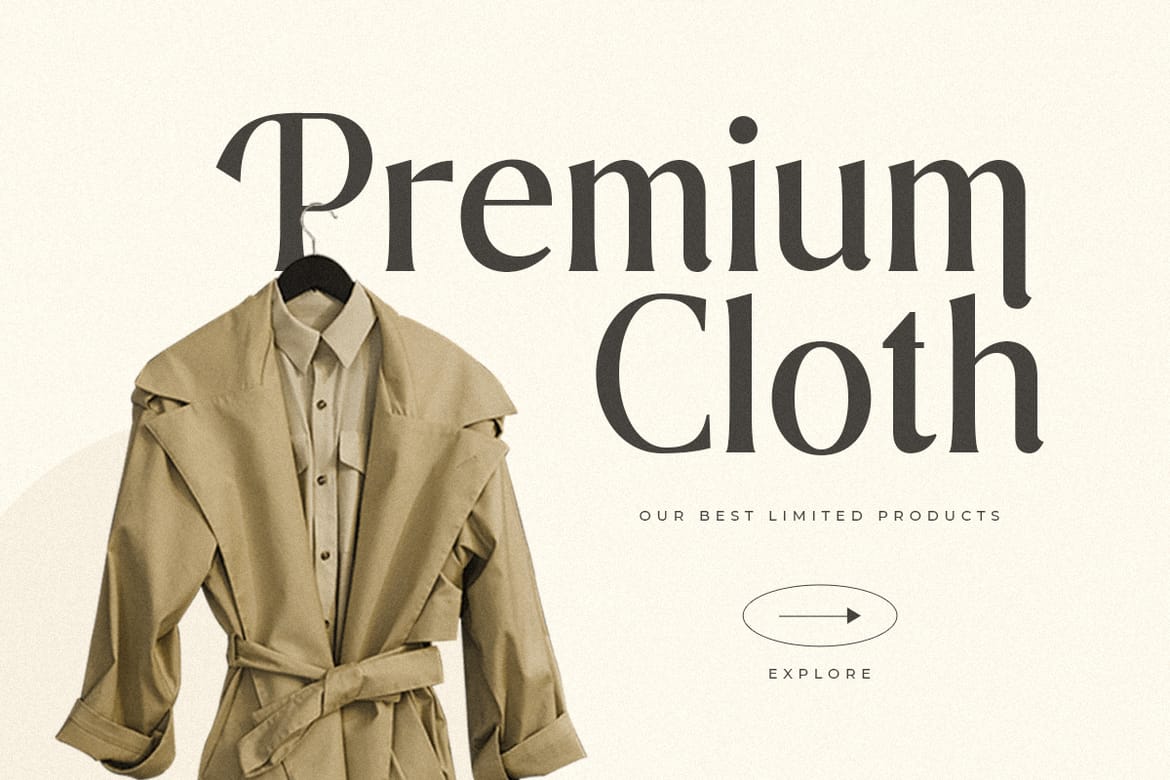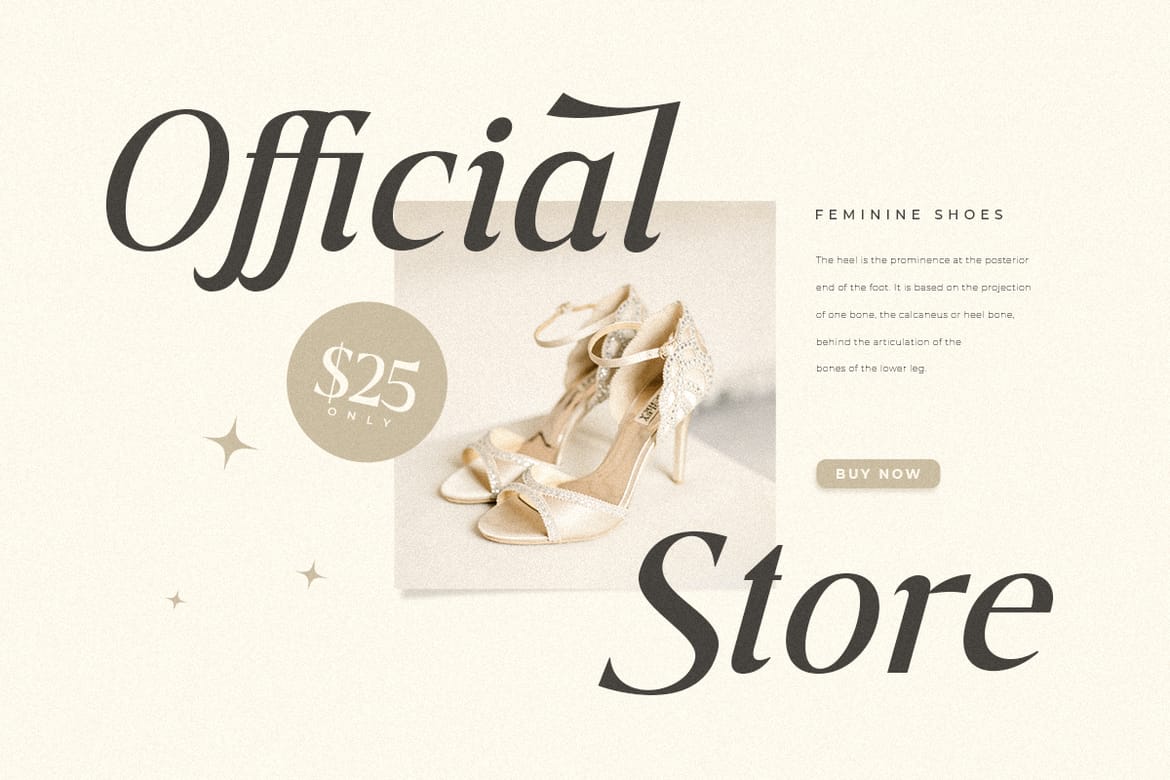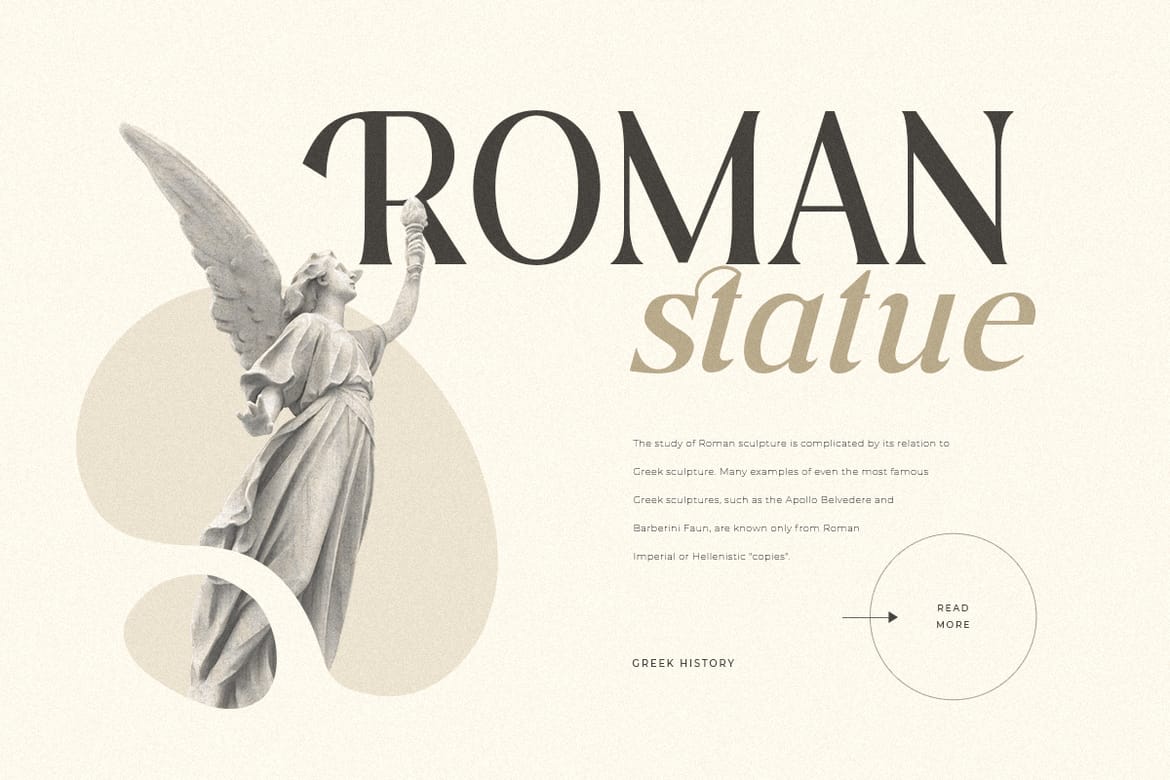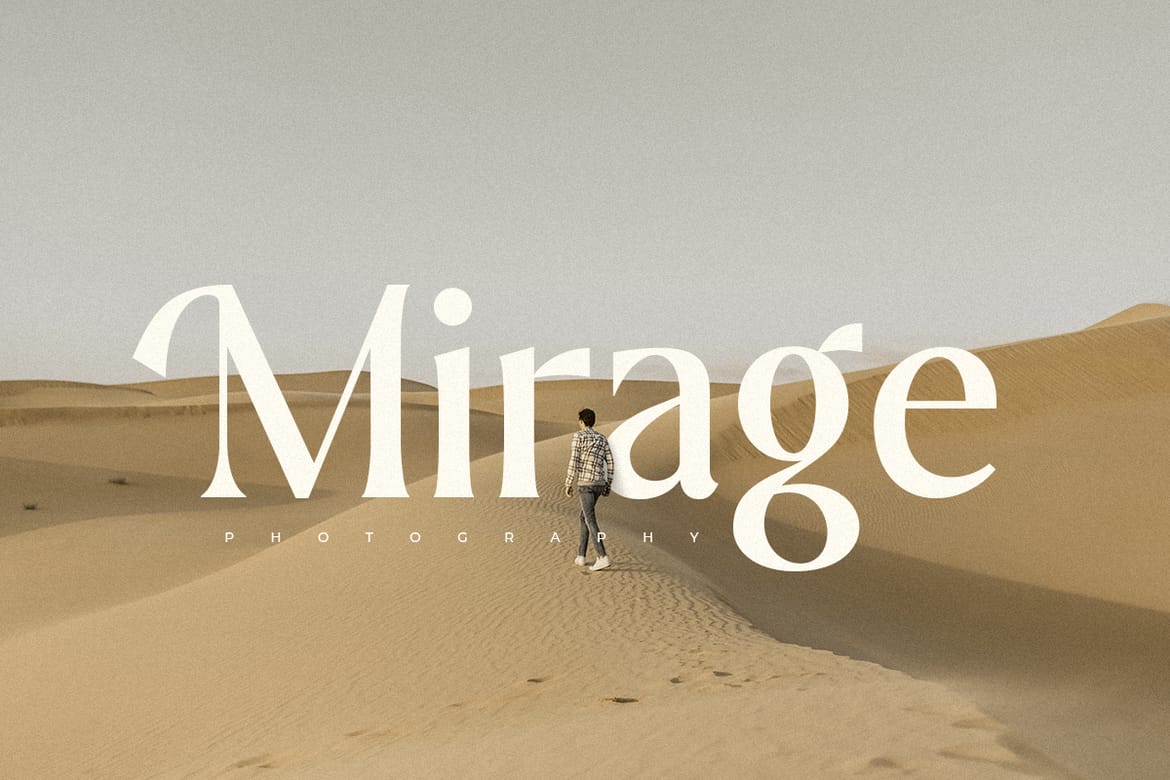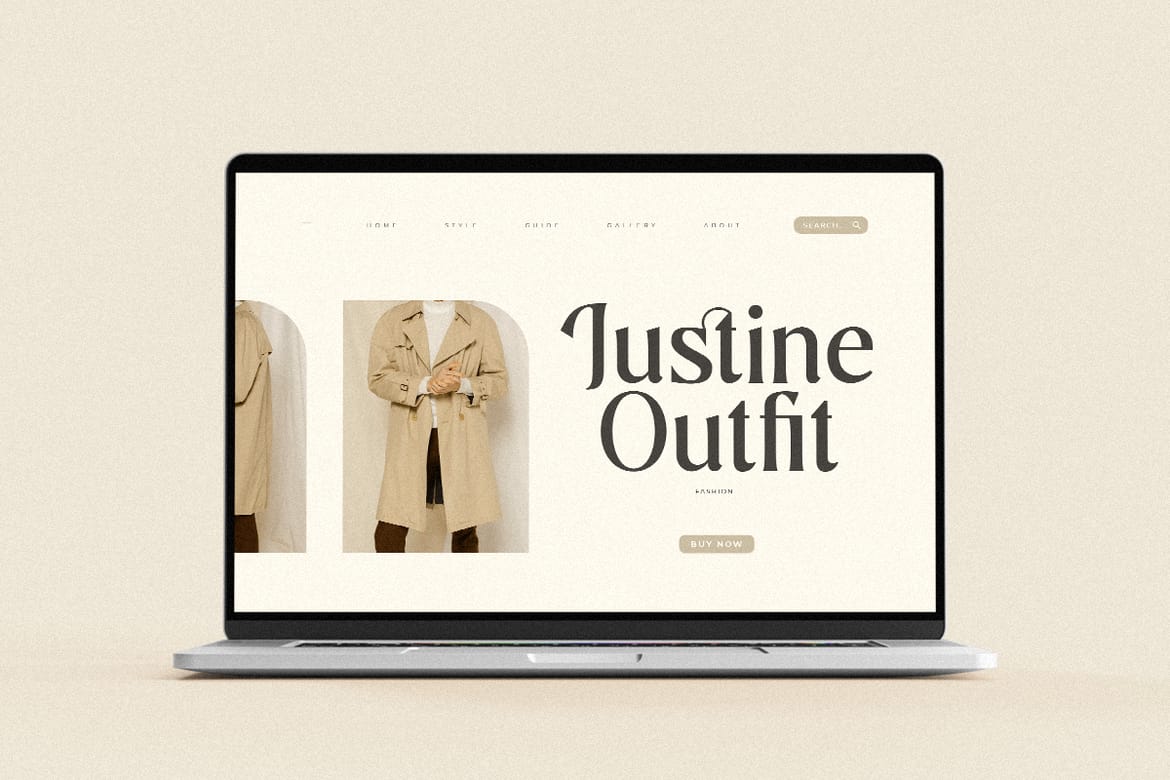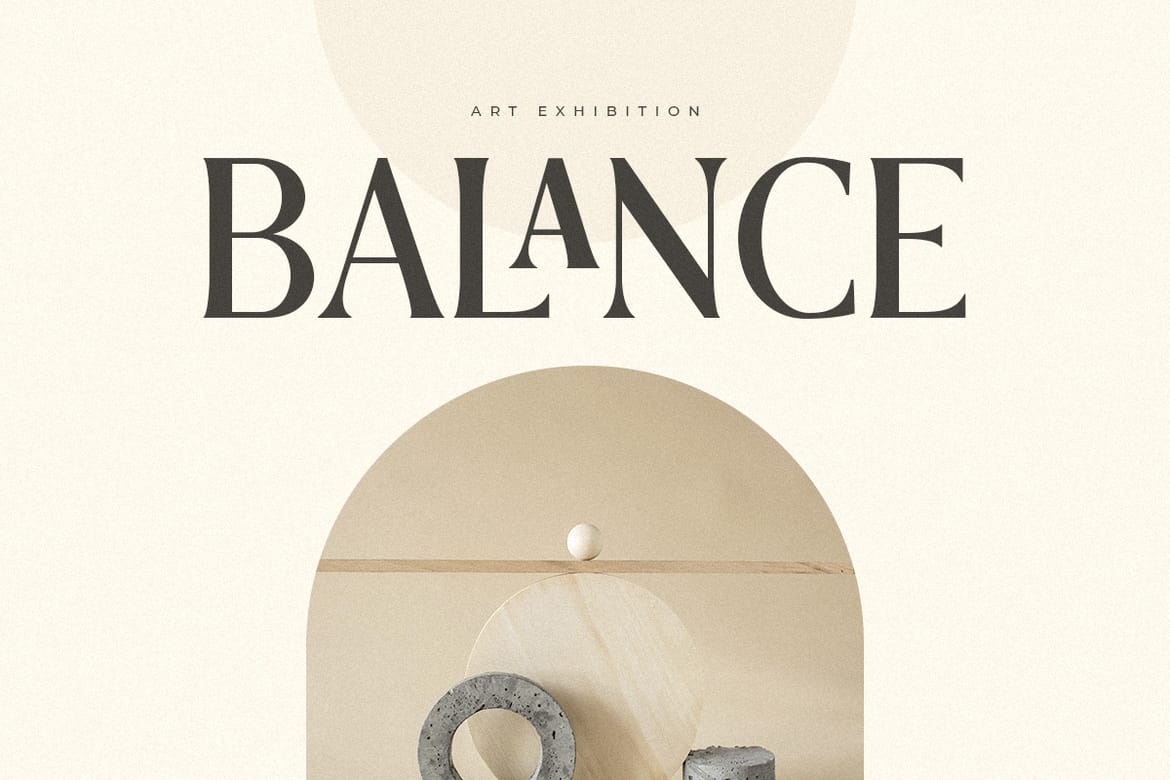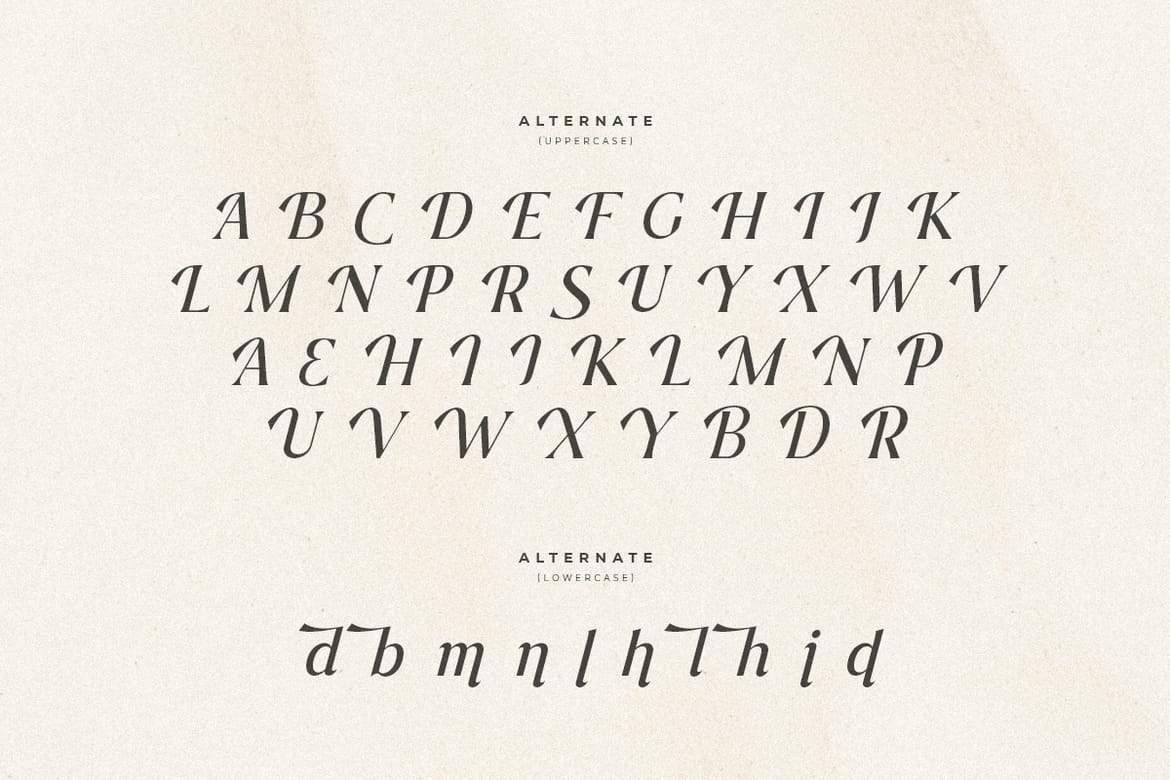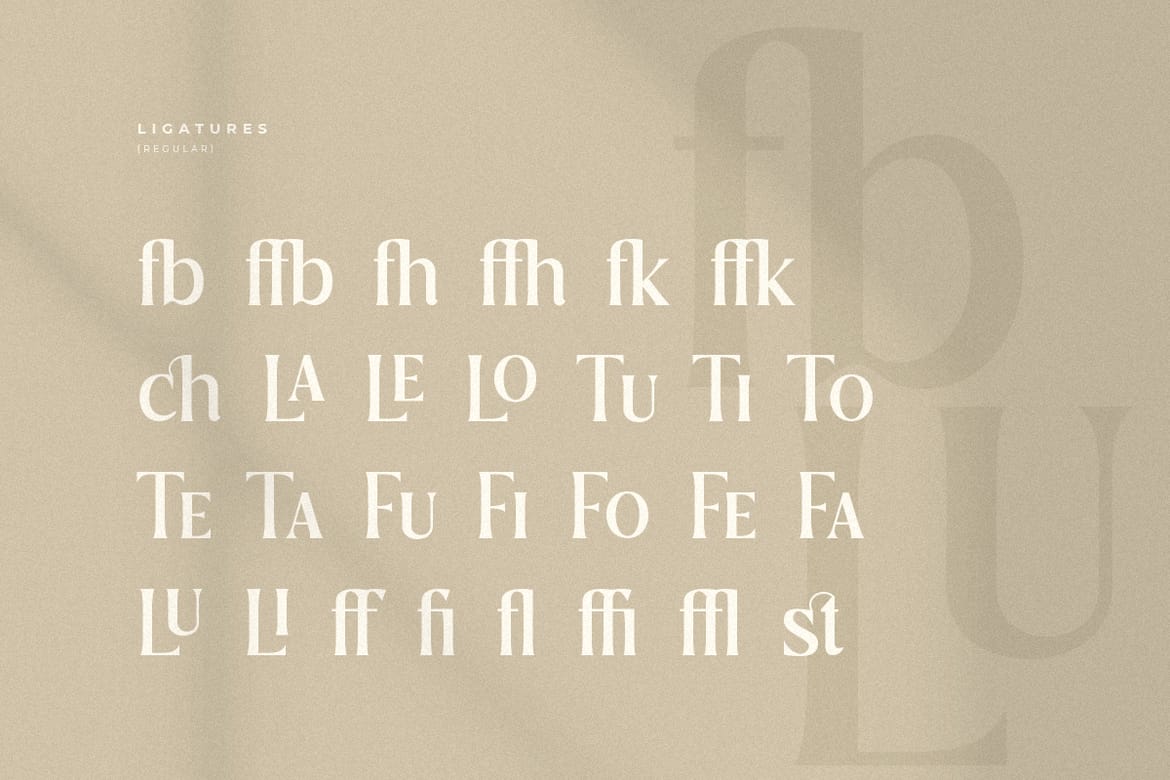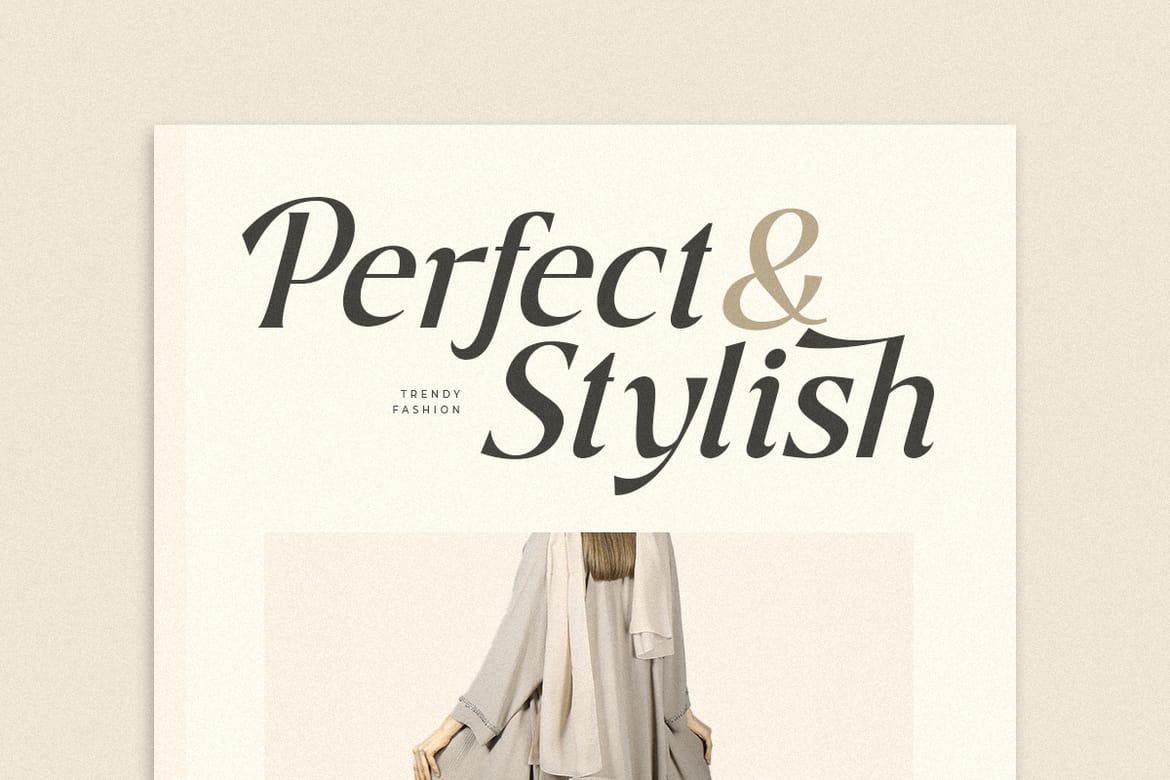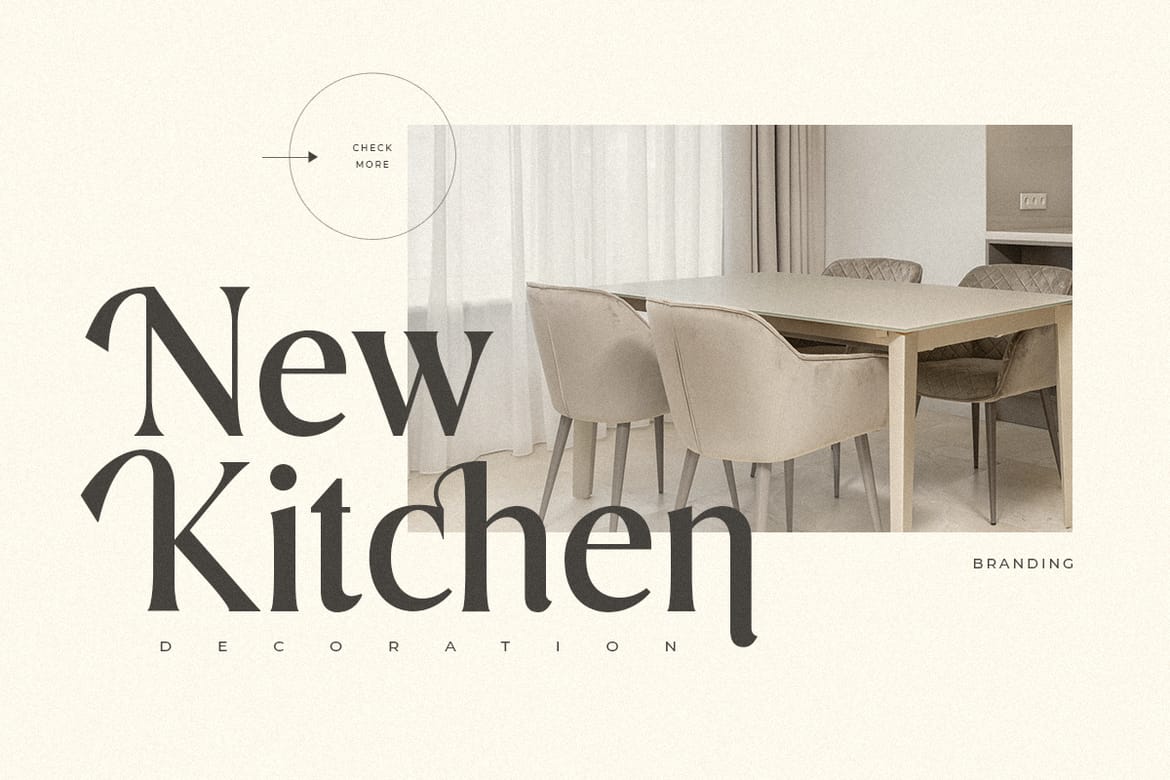
A Display font that we created special for elegant branding needs, with extra alternates in unique shape will be ready to add value of your brand. It so nice to leverage designer or product owner that need solutions to make their design look more aesthetic and modern. And specially for Journey font, We prepared any alternates characters to help you create unlimited variations for your creative needs.
Journey Modern Aesthetic Serif Font ready with:
Ready with alternate characters and ligatures
Preview as a inspirations that you can do with Journey font
Ready with Lowercase and Uppercase characters
- Elegant aesthetic serif display
- 4 weights with italic styles
- Alternates ligatures all cases